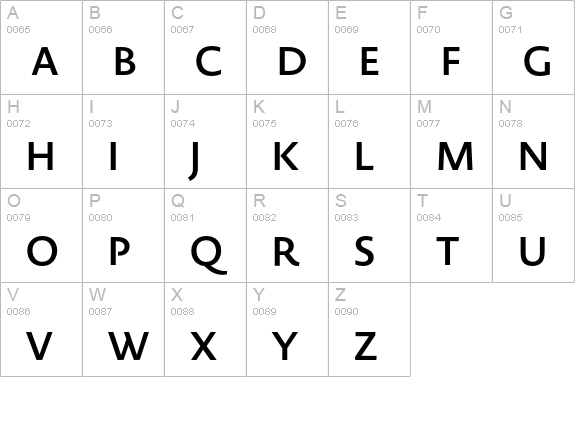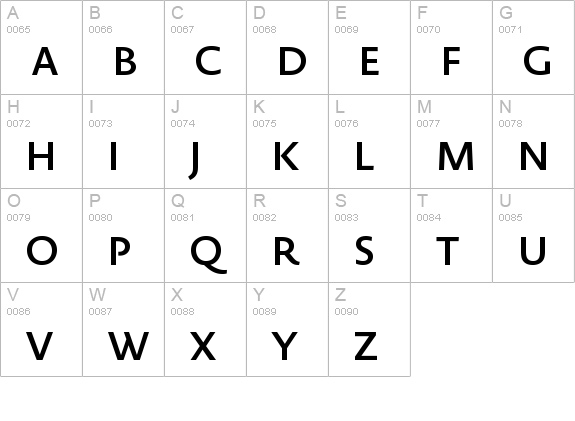
Novel Sans Pro SemiBold is a sub-bold, structured variant in the Novel typeface family \xE2\x80\x94 well suited to sub-headlines and emphasised passages.
Novel Sans Pro SemiBold font is a versatile and modern typeface that strikes the perfect balance between elegance and readability. With its bold and distinct appearance, this font is ideal for making a statement in headlines, titles, and branding materials. The SemiBold weight adds a touch of sophistication and authority to any design project. What sets Novel Sans Pro SemiBold font apart is its sleek and contemporary look, making it suitable for a wide range of applications, from websites to print materials. Whether you're designing a magazine layout, creating a logo, or crafting an eye-catching poster, this font is sure to capture attention and leave a lasting impression. The best part? Novel Sans Pro SemiBold font is available for free download at FontsMarket.com. This means you can easily access this high-quality typeface and use it in your projects without any cost. Don't miss out on the opportunity to elevate your designs with the stylish and impactful Novel Sans Pro SemiBold font. Download it today and watch your creations come to life!